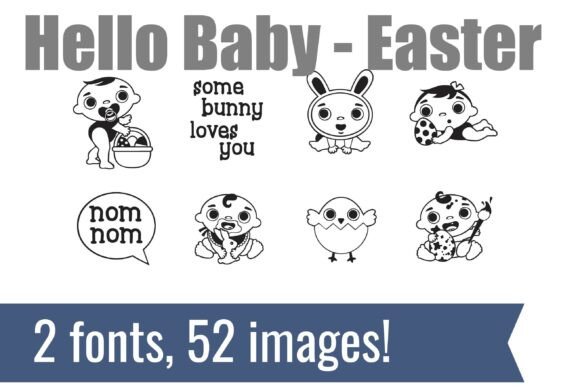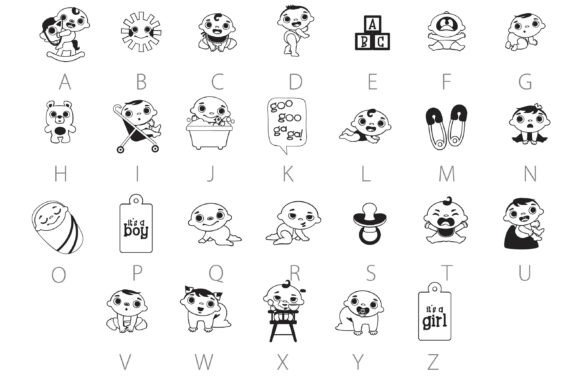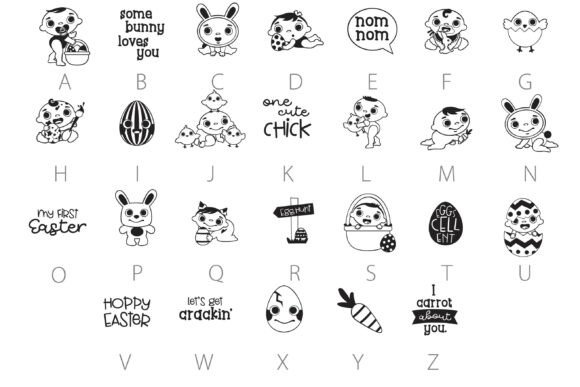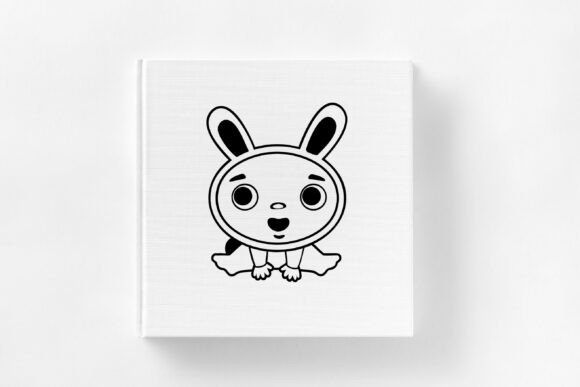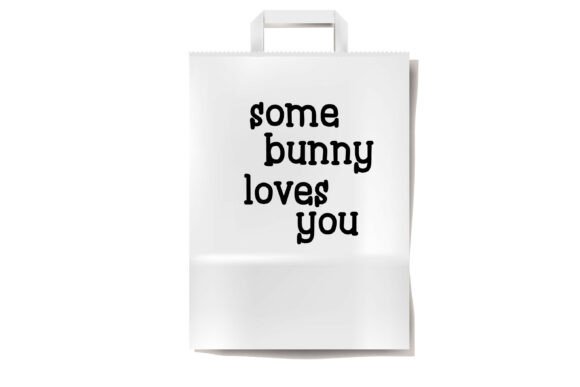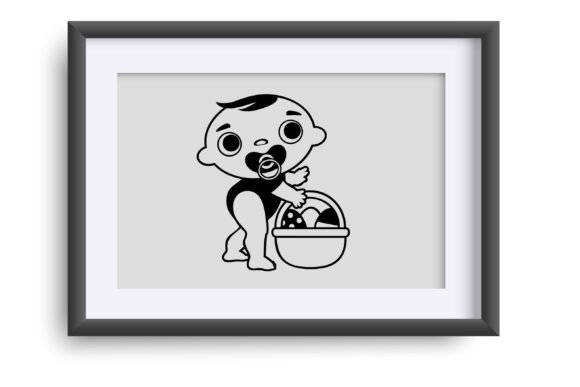
Unlock Endless Creativity with Hello Baby Dingbats Font
Are you tired of spending hours searching for the perfect icons and graphics for your designs? Look no further! The Hello Baby Dingbats Font bundle is here to revolutionize your creative process. This bundle includes two perfectly coordinated dingbat fonts, featuring adorable babies and Easter imagery, to help you unlock endless creativity.
What are Dingbat Fonts?
Dingbat fonts are a type of font that consists of graphical symbols, rather than traditional letters and numbers. They are often used in graphic design, crafting, and paper crafting to add visual interest and personality to projects. With the Hello Baby Dingbats Font bundle, you’ll get access to dozens of cohesive, scalable designs that can be used in a variety of applications.
The Hello Baby Dingbats Font Bundle
The Hello Baby Dingbats Font bundle includes two dingbat fonts that are perfectly coordinated, making it easy to create stunning designs. The fonts feature adorable babies and Easter imagery, perfect for seasonal and holiday projects. With these fonts, you’ll have access to a wide range of designs, from charming seasonal icons for holiday cards to intricate frames for your invitations.
Benefits of Using Hello Baby Dingbats Font
• Save Time: No more spending hours searching for the perfect icons and graphics. With the Hello Baby Dingbats Font bundle, you’ll have access to dozens of designs directly from your cutting or design software.
• Scalable Designs: The designs in the Hello Baby Dingbats Font bundle are scalable, making them perfect for a variety of applications, from vinyl cutting to paper crafting.
Uses for Hello Baby Dingbats Font
The Hello Baby Dingbats Font bundle is perfect for a variety of applications, including:
• Vinyl Cutting: Create custom vinyl cuts for signs, decals, and more.
• Paper Crafting: Add visual interest to your paper crafts, such as cards, invitations, and scrapbook pages.
• Planners: Create custom planners and journals with adorable baby and Easter-themed designs.
• Holiday Cards and Gifts: Create custom holiday cards and gifts with charming seasonal icons and designs.
The Hello Baby Dingbats Font bundle is a must-have for designers and crafters looking to unlock endless creativity. With two perfectly coordinated dingbat fonts, featuring adorable babies and Easter imagery, you’ll have access to dozens of cohesive, scalable designs that can be used in a variety of applications. Say goodbye to hours of searching for the perfect icons and graphics, and hello to stunning designs created with ease.